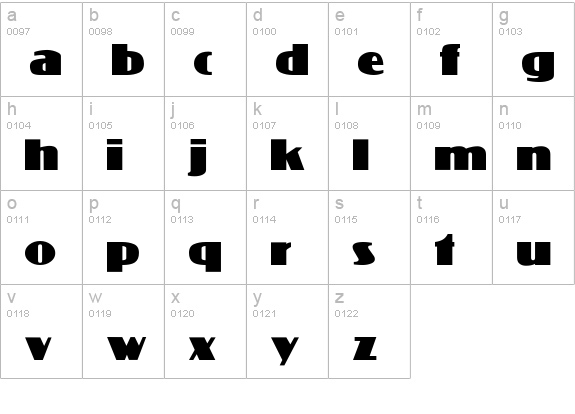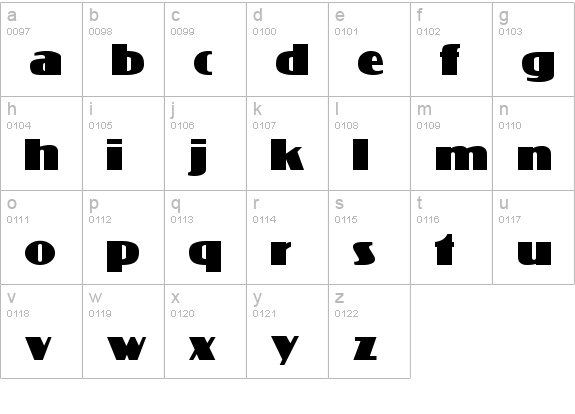
Crosset Font Details
Introducing Crosset font, a sleek and modern typeface that exudes elegance and sophistication. With its clean lines and contemporary design, Crosset is perfect for a wide range of creative projects, from branding to editorial design. This versatile font features a unique blend of serif and sans-serif elements, giving it a distinctive look that sets it apart from other typefaces. What's even better is that Crosset font is available for free download at FontsMarket.com. Yes, you read that right - you can get your hands on this stunning font without spending a dime. Whether you're a designer looking to add a touch of class to your creations or a business owner in need of a professional font for your branding materials, Crosset font has you covered. Don't miss out on the opportunity to elevate your projects with the stylish and sophisticated Crosset font. Download it for free today and take your designs to the next level.